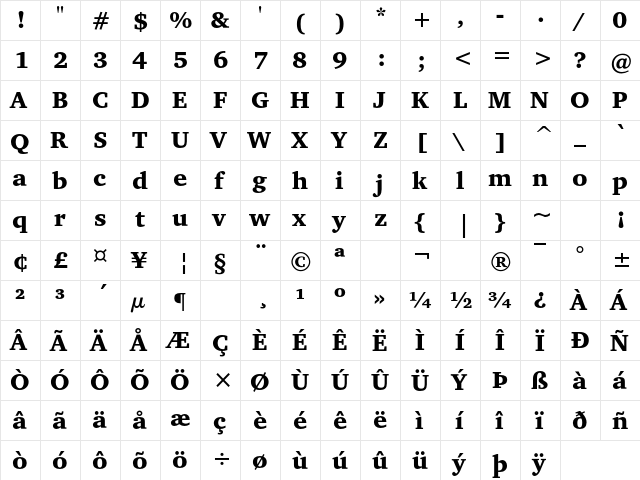
Charter BT Pro Black
| Foundry | Bitstream Inc. |
| Designer | Matthew Carter |
Design Context for Charter BT Pro Typeface
Charter BT Pro takes a measured approach to typography — its balanced proportions and neutral character make it a reliable workhorse for both digital and print work.